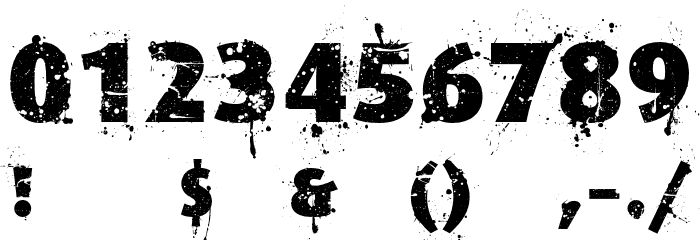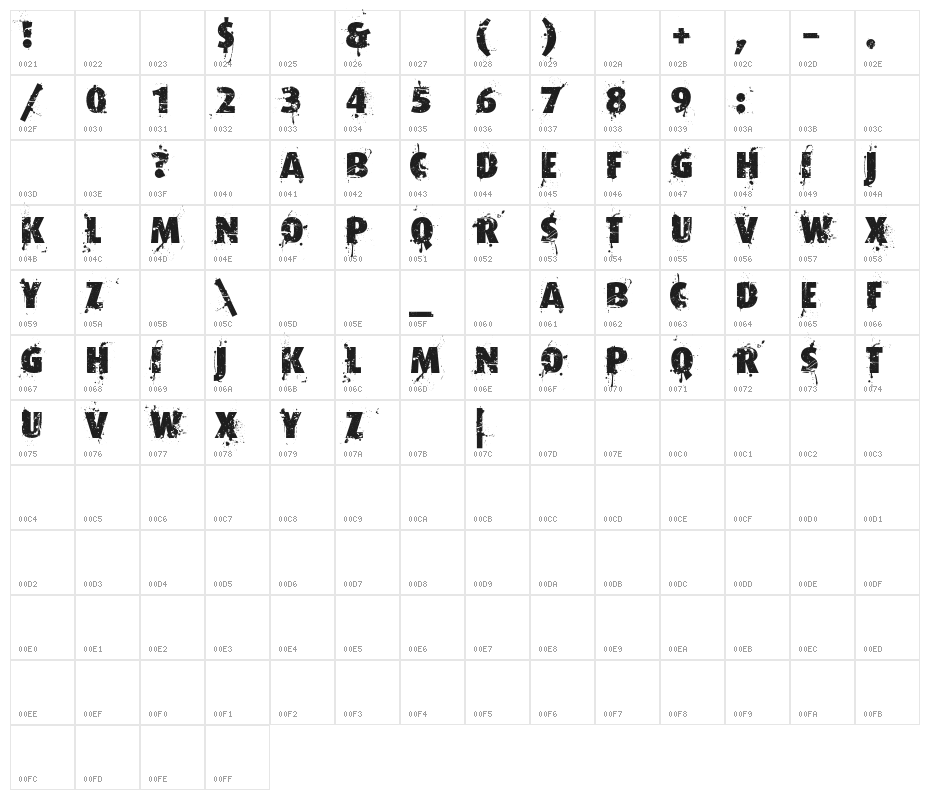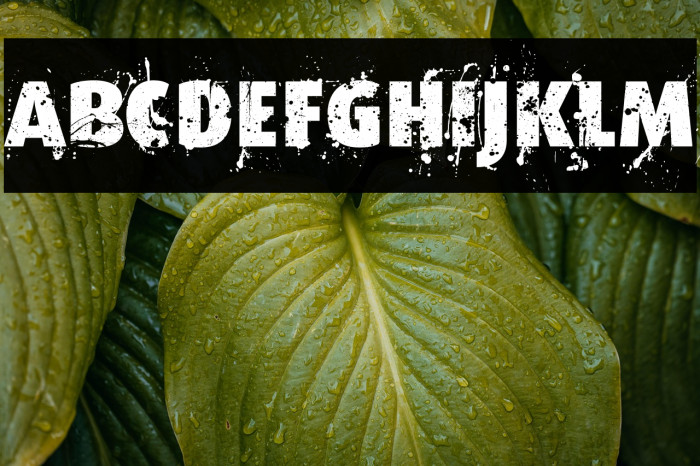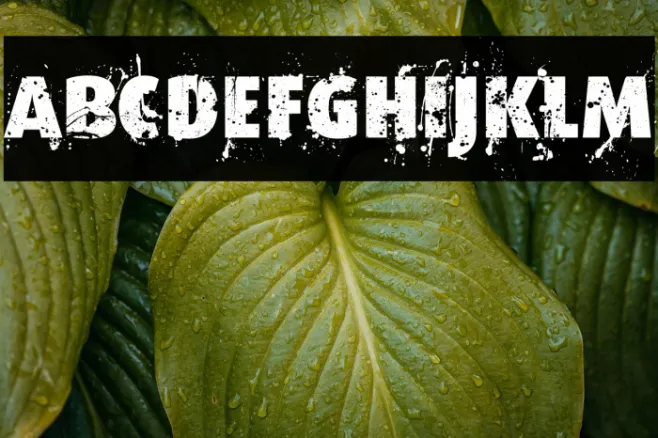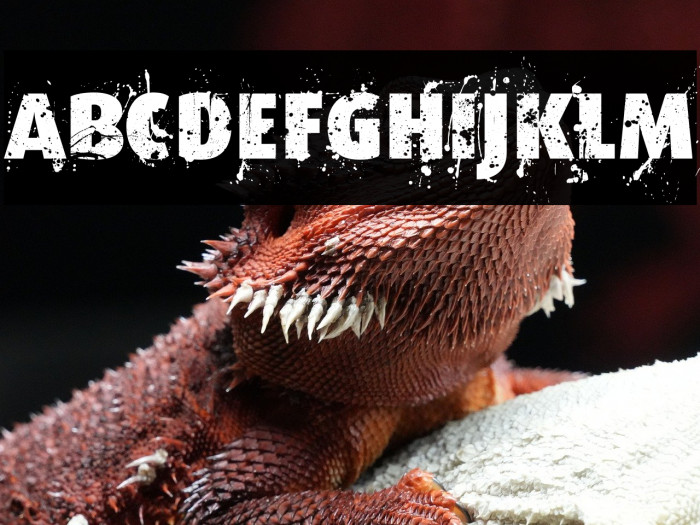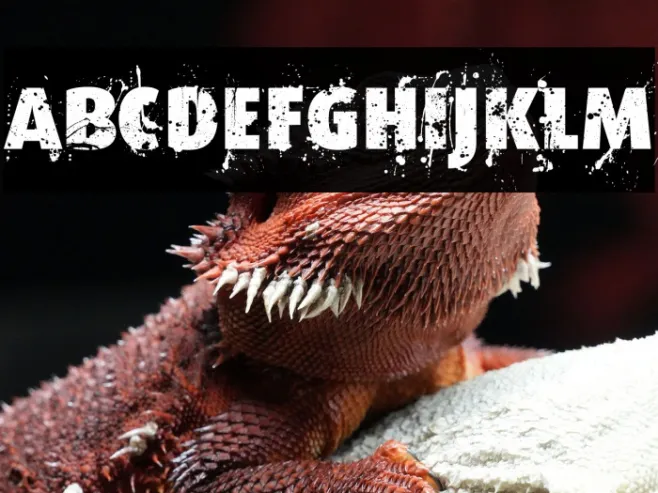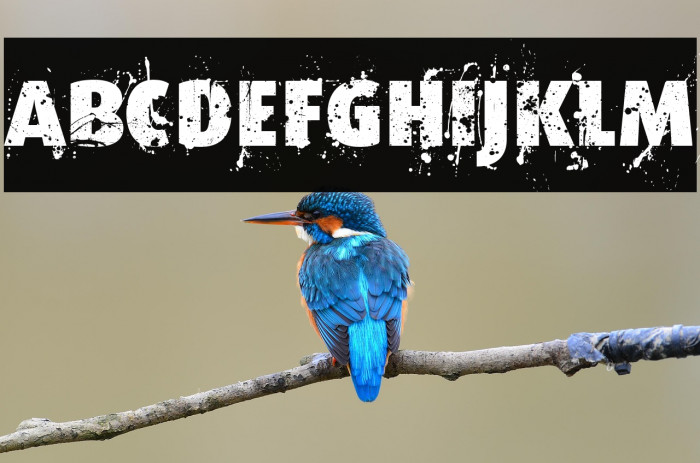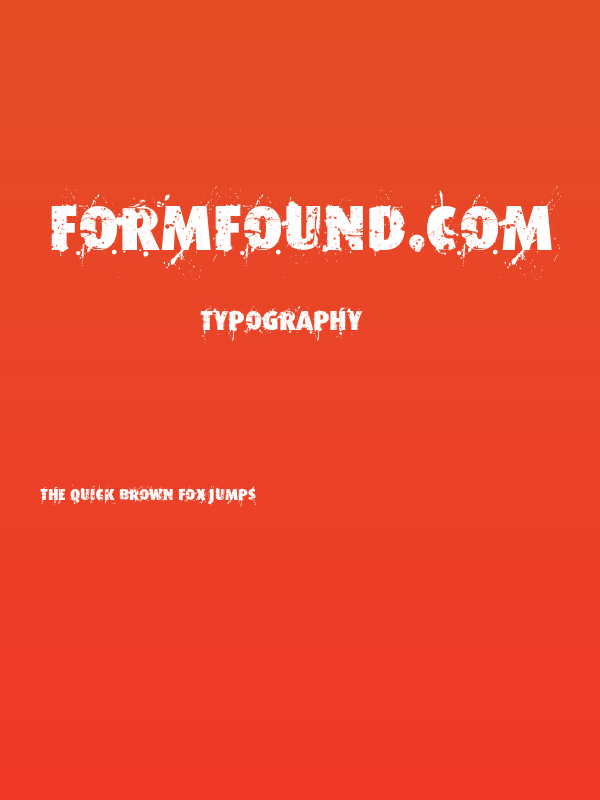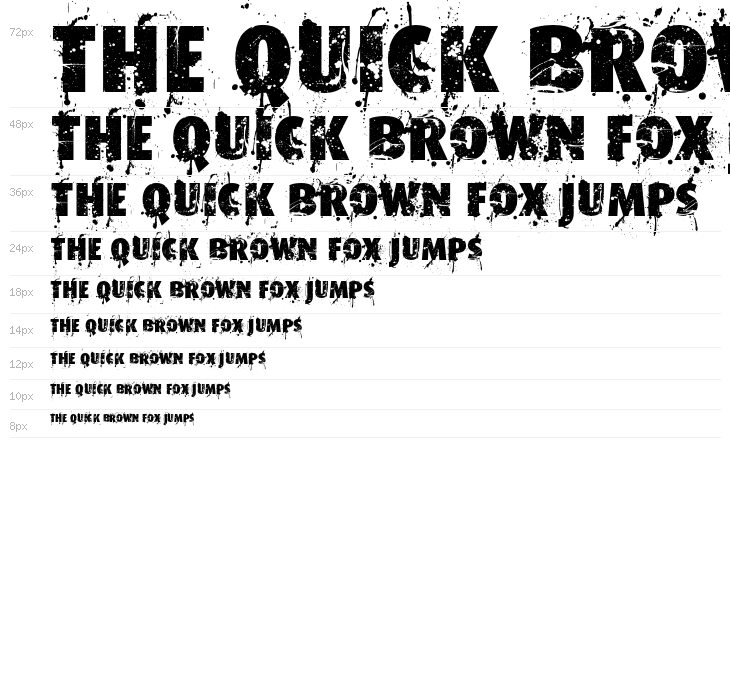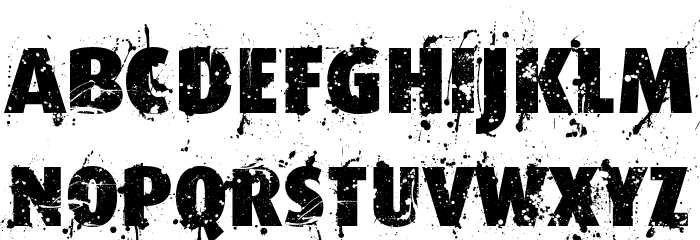
Formfound.com Font
Formfound.com Description
This font features a bold, distressed style with a grunge texture that gives it a rugged, urban appearance. The characters are heavily stylized with splatters and irregular edges, creating a dynamic and edgy look. The uppercase and lowercase letters maintain a consistent weight, while the numbers and special characters follow the same distressed theme. This font is ideal for projects that require a bold statement or an artistic, rebellious vibe.
| Overall Style | Grunge, Urban, Edgy |
| Use Case | Logos, Posters, Album Covers |
| Proposed Projects | Ideal for music album covers, streetwear branding, graffiti art projects, or any design that seeks to convey an edgy, rebellious tone. |